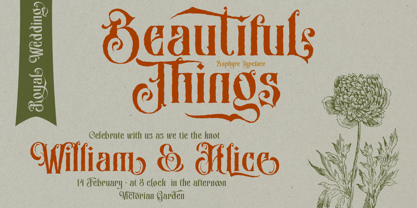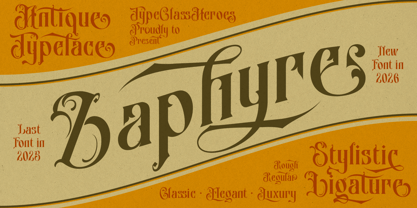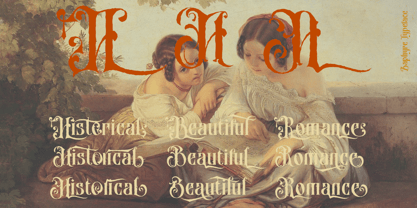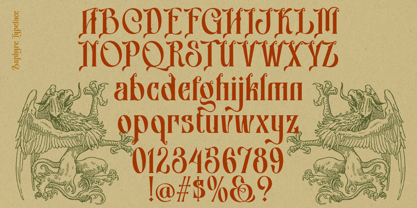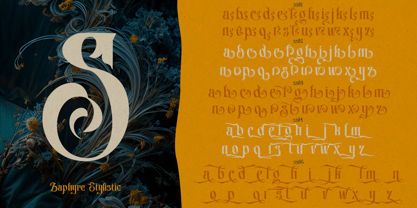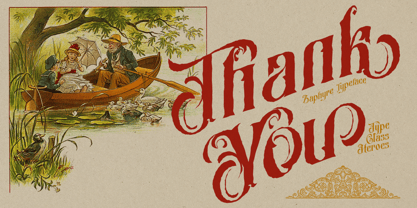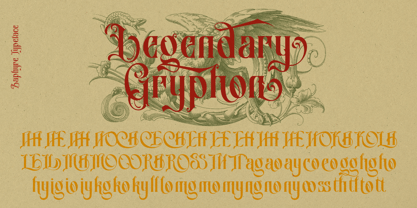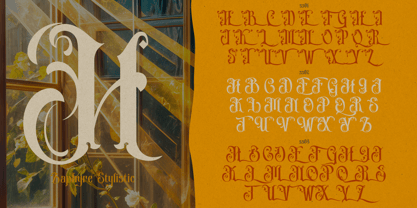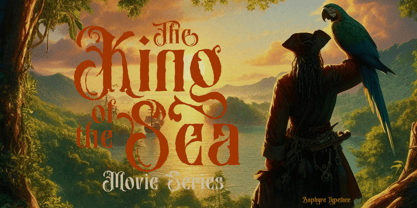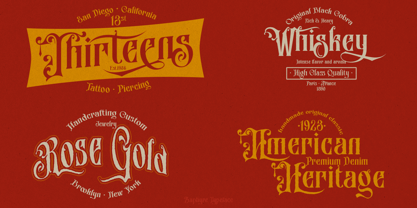
Zaphyre
von TypeClassHeroes
Die Schriftfamilie Zaphyre wurde von Suandana ipandemade entworfen und von TypeClassHeroes veröffentlicht. Zaphyre enthält 2 Stile und Familienpaketoptionen. Mehr über diese Familie
Introducing Zaphyre, a font that showcases an antique typeface style enriched with numerous ligatures, swashes, and swirling ornaments available in both regular and rough versions. This font exudes elegance, artistry, and character, with each letter flowing intricately to create a fantasy, magical, and mysterious ambiance. Its design evokes the typography found in medieval or mythical tales, making it ideal for branding, packaging, and creative projects that seek to capture a sense of wonder and nostalgia.
Designer: Suandana ipandemade
Foundry: TypeClassHeroes